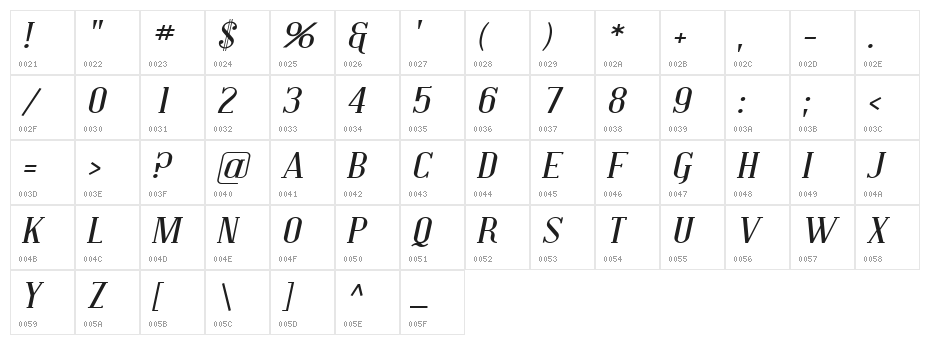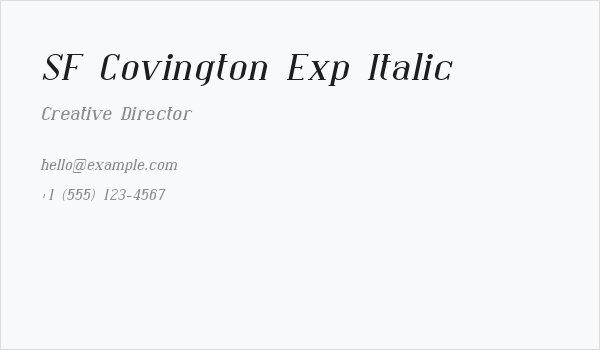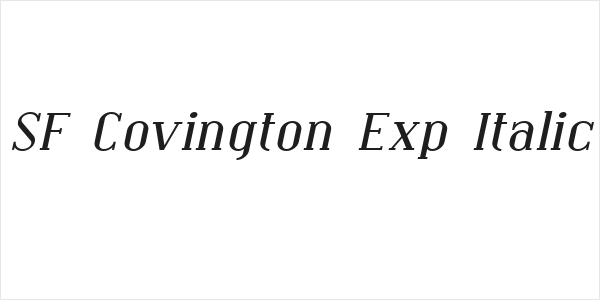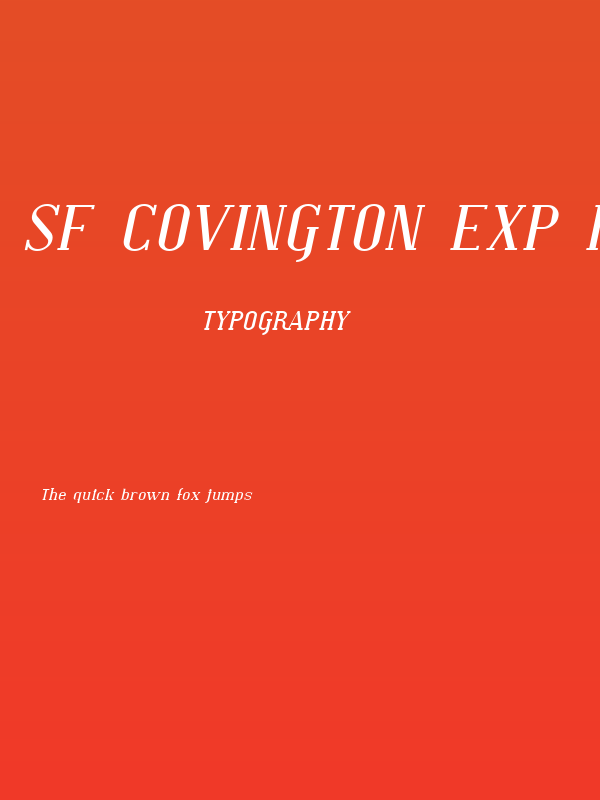
SF Covington Exp Italic Font
SF Covington Exp Italic Description
This font features a sophisticated and elegant italic style with a modern twist. The characters are slightly condensed, giving it a sleek and streamlined appearance. The strokes are smooth and consistent, with a moderate contrast between thick and thin lines, enhancing readability while maintaining a stylish flair. The uppercase letters are tall and commanding, while the lowercase letters are well-proportioned, creating a harmonious balance. The numerals are clear and distinct, making them suitable for various applications. Special characters are thoughtfully designed, adding to the font's versatility.
| Overall Style | Modern, Elegant |
| Use Case | Headlines, Branding, Invitations |
| Proposed Projects | Ideal for fashion magazines, luxury branding, elegant invitations, and sophisticated web design. |